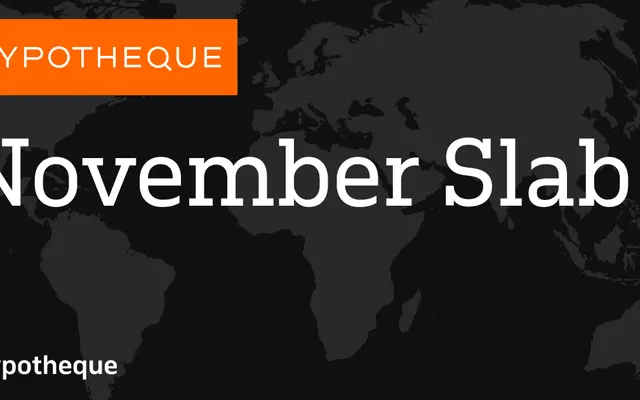
November Slab
A large-scale slab serif system spanning nine weights and three widths, with full italic coverage and a variable font option.
November Slab extends across standard, condensed and compressed widths, each running from Hairline to Black with matching italics, giving designers 54 styles in total. The geometric slab construction keeps stroke contrast low and serifs rectangular, making it well-suited to display work, editorial hierarchies and brand systems that need consistent structure across size and weight. A variable font is also available for interpolation across the weight and width axes.
November Slab is a slab serif system with geometric slab construction across nine weights and three widths, following the pattern of its sans-serif companion November. The uniform stroke weight and rectangular serifs place it firmly in the geometric slab tradition.